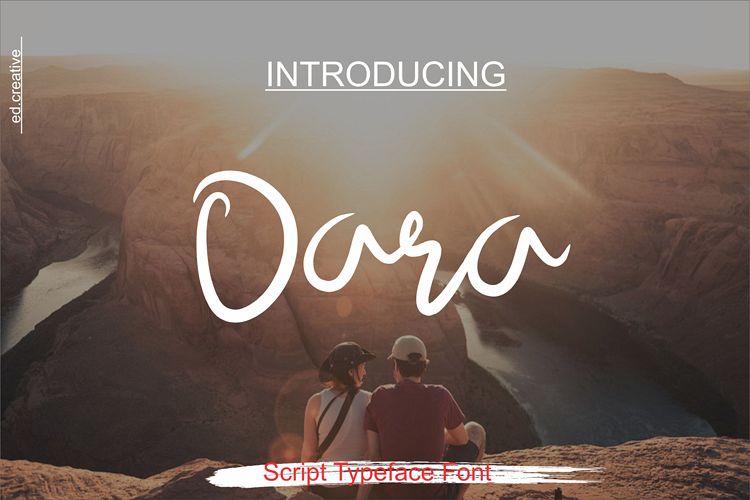
Dara
Dara is a modern calligraphy font with
the current handwriting style, this font is perfect for branding,
wedding invites, magazines, mugs, business cards, quotes, posters, book covers and
etc
Dara fonts is equipped with ligature so it's suitable for your design